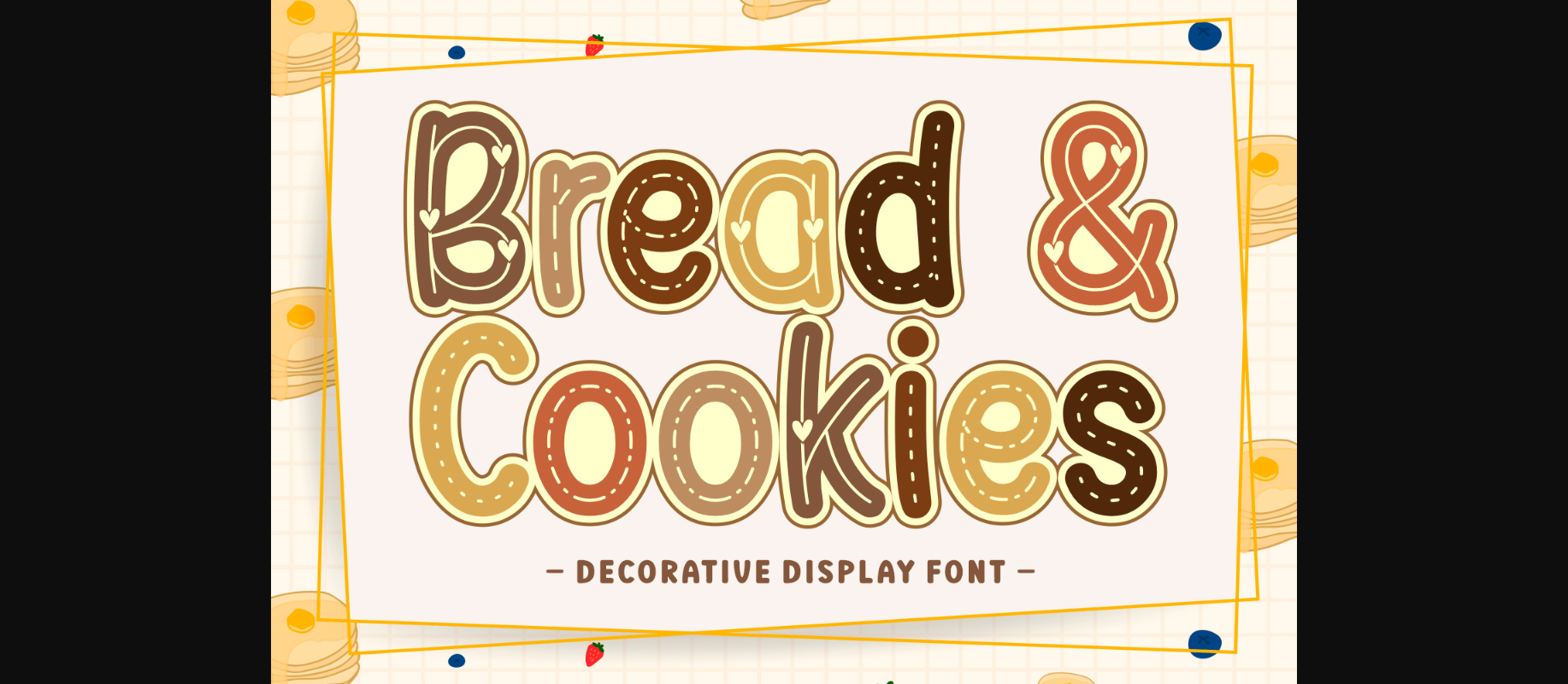
About Bread & Cookies Font
Bread & Cookies is a cheerful and stylish decorative font. The lovely details give this font its specific charm that will add character to any design! It looks fantastic on logos, flyers, product packaging, DIY decorations, and many more.